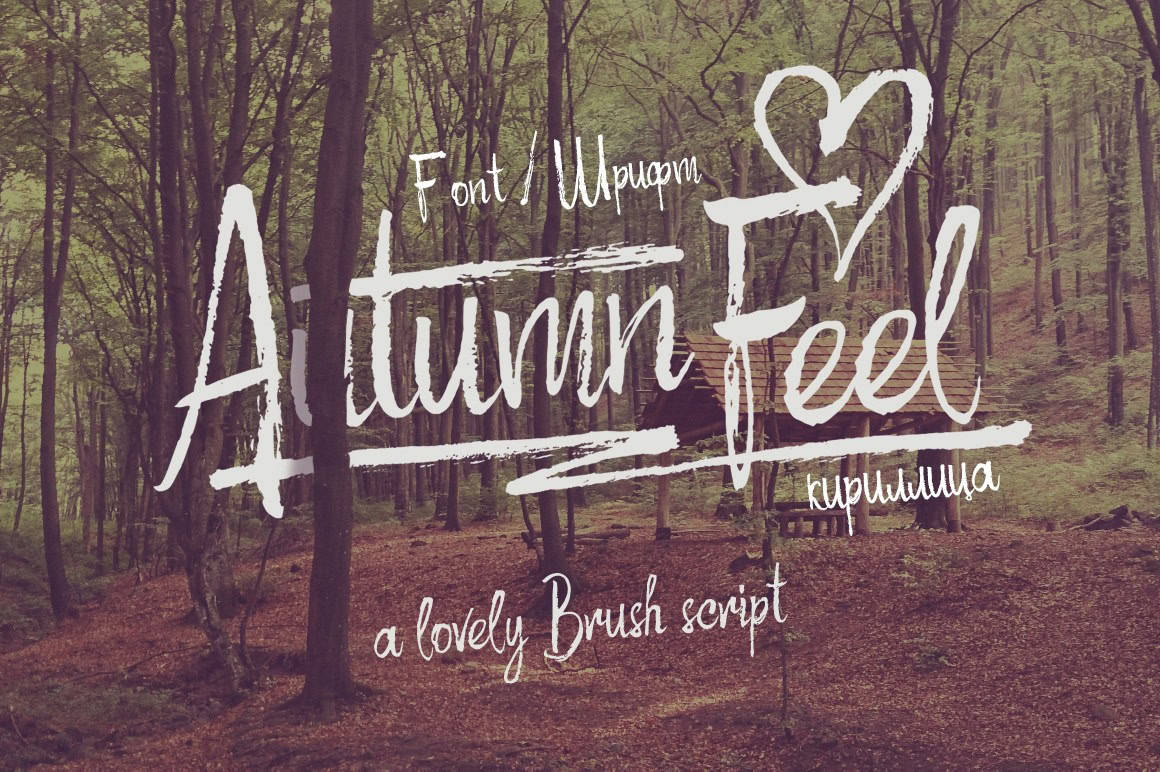
autumn feel
Embrace the Warmth of Autumn Feel Font
Autumn Feel Font, crafted by artist John Smith in 2022, captures the essence of fall with its organic shapes and flowing curves. This typeface is designed for projects that evoke nostalgia and comfort, making it perfect for seasonal marketing, greeting cards, and cozy branding materials.
Unique Features and Formats of Autumn Feel Font
The Inspiration Behind Autumn Feel Font
Inspired by the picturesque beauty of autumn leaves and harvest seasons, Autumn Feel Font embodies the warmth and comfort often associated with fall. John Smith’s dedication to detailed design reflects in each character, making this font a delightful choice for any autumn-themed project.
Perfect Uses for Autumn Feel Font
Autumn Feel Font is ideal for a variety of applications including seasonal flyers, invitations to fall gatherings, handcrafted product branding, and more. Its inviting aesthetic adds a unique touch, making designs memorable and captivating during the fall season.